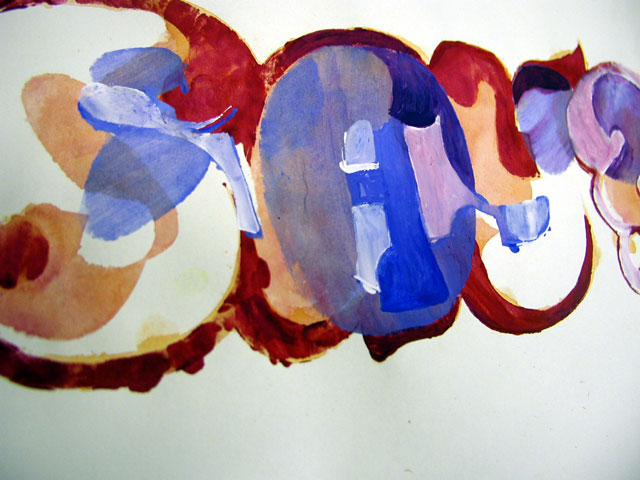
![]() ![]() ![]() layered display type basic info : presentation half way : ![]() Assignment The group was asked to design a typeface which exploits the possibilities of layers. How far is it possible to go and how ornaments, patterns, colours and overlaps affect the design? 4+ layers were required to sufficiently test how they work. Process From the beginning the group's work was very idea-emphasized and experimental. After the initial sketching, the group decided that instead of purely working with the forms of the letters, innovative ways of using layers should be searched for. To further this, the group chose an existing typeface as one starting point. OCR-B, a monospaced typeface, was selected for its clear form. Quite soon after the first experiments the group became interested in the character's counterforms and the surrounding space. The space was divided into overlapping areas which were placed on individual layers. Thus, with a combination of two layers the character could already be perceived. Later on the areas were allowed to partly overlap the letterform. The next step was to try different fillings within areas defined in this manner. Each member of the group made a set of layers which were then combined together. However, the group felt that this approach was putting the pictoral elements forward instead of the letterforms. After the group had made many testings with varying printed and on-screen layers, it was thought that the developing should be extended to 3D. When a series of spatial experiments had been tried, the group again felt that it was getting too far from the typedesign part of the assignment. Final Solution To combine the letterdesign aspect of the assignment with the many experiments, the group decided to take just one word which would then be shaped into a word-image. This way the group felt, that the possibilities of the different layers could be properly visualized. The final work includes six coloured layers and an outline layer. These layers can be mixed together and used for example three at a time. The layers are designed so that the word-image is legible even with a few of the them in use. ![]()
![]() 8 comments so far: read comments ![]() ![]() chester @ Thirstype.com -- Thursday, October 24 2002, 11:14 pm The most successful of the layered type experiments are made from the intersections of layers; from the way that a series of forms that are not letters have been built up to reveal forms that are letters. Beautiful work. tamye | society of typographic aficionados -- Friday, October 25 2002, 07:54 am The evolution from the half-way presentation to the final works is significant. The fluidity and voluptuousness of some of the final letterforms emerging from the layers is really quite stunning. Stefan Hattenbach | MAC Rhino -- Friday, October 25 2002, 12:49 pm Experimenting is always a benefit for the strict ordinary work. Displayed are some interesting stuff. Would be fun to see this as a finalized typeface with many different weights and filling options etc. evert bloemsma -- Friday, October 25 2002, 02:08 pm Hallo jongens, waarschijnlijk ben ik toch te laat vanwege het tijdsverschil? Wat ik zie op de foto’s is moeilijk te "beoordelen" zo; het is meer, wat ik noem "grafisch ontwerp" en valt buiten het echte werken aan letters. Het thema van de workshop is interessant maar; De resultaten vind ik erg onsystematisch en daarom niet zo zinvol, erg decoratief in hun werking. Daarom aardig als grafisch ontwerp maar niet interessant als letterontwerp. Bijvoorbeeld bij de 'Z'; vanwaar al die kleuren en patronen?! Dat is enkele stappen te veel. Wel leuk om te zien hoor. groeten uit Holland Evert Bloemsma Jan Middendorp -- Friday, October 25 2002, 03:31 pm Hope I'm not too late. I'm impressed by the intelligence and analytical thinking with which you've tackled the task. It's never easy to limit oneself to one aspect of a complex problem, and you've done that admirably with each step. I guess you'd need another week, though, to put the whole thing into the melting pot again and boil up a complete layered typeface... hugo@visionandfactory.com -- Friday, October 25 2002, 03:37 pm Hello, Very powerful work. I am happy to see that the Finnish students/designers do like joyful colouring and forms. Do I see inspiration from the seventies? Don't stop, go on and never say: "Say" no more! Best regards Hugo Puttaert http//:www.visionandfactory.com jacques le bailly -- Tuesday, October 29 2002, 11:30 am Although the results look very good, from an esthetical point of view, they are –like e.bloemsma already said– more graphic than typographic. The assignment to experiment with ornaments, patterns, colours and overlaps, was taken too wordly. I kinda miss an experiment which shows a research of typographic boundaries (readability, combination of forms which result in characters, ligurating, spacial elements, etc. etc.). Reacted way too late... http://www.baronvonfonthausen.de/ Akiem -- Tuesday, October 29 2002, 11:33 am just saw this link on typographica. ![]()